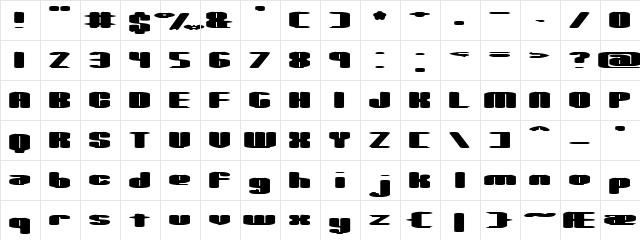
Spacious BRK Regular
Design Context for Spacious BRK Typeface
Spacious BRK is a composed and adaptable typeface that performs quietly and consistently across a wide range of design contexts.